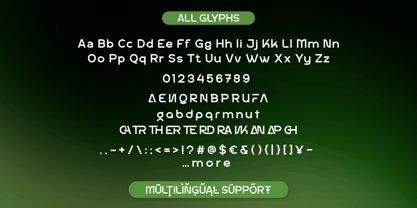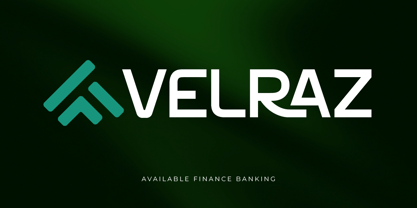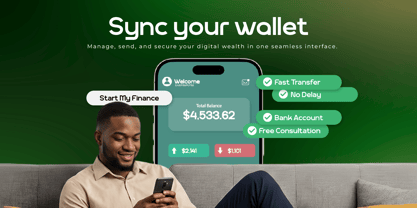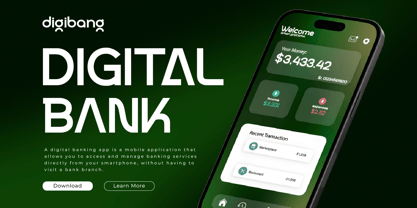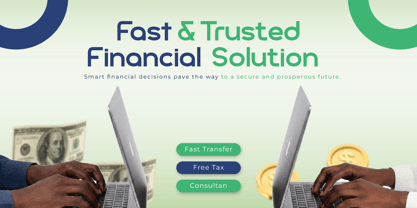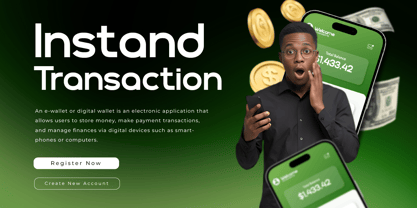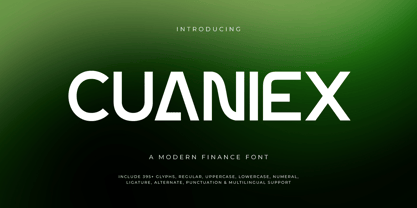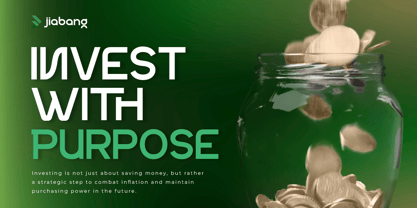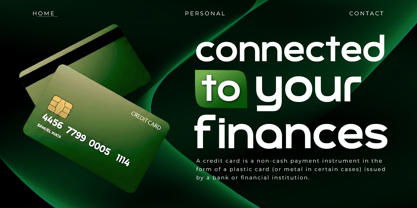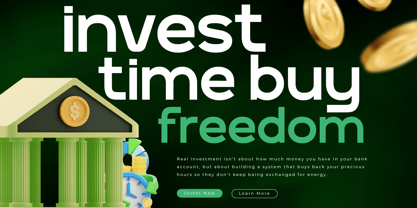
Cuaniex
by Trabas Kriya
The Cuaniex Font Family was designed by Murozakul Akhsan and published by Trabas Kriya. Cuaniex contains 1 styles. More about this family
Engineered for a Seamless Transaction UI, Cuaniex delivers high-level legibility across digital interfaces, from banking apps to investment platforms. Its minimal yet bold sans-serif characters provide a professional premium feel, ideal for strengthening branding in crypto, blockchain, and financial technology sectors.
Featuring over 395 glyphs, Cuaniex offers design flexibility through unique ligatures and modern alternates. Full multilingual support ensures global readiness, making it the top choice for tech startups and corporations aiming to stand out in the digital finance market.
- All glyphs and Feature
- Fonts include Multilingual: Support for 85 languages